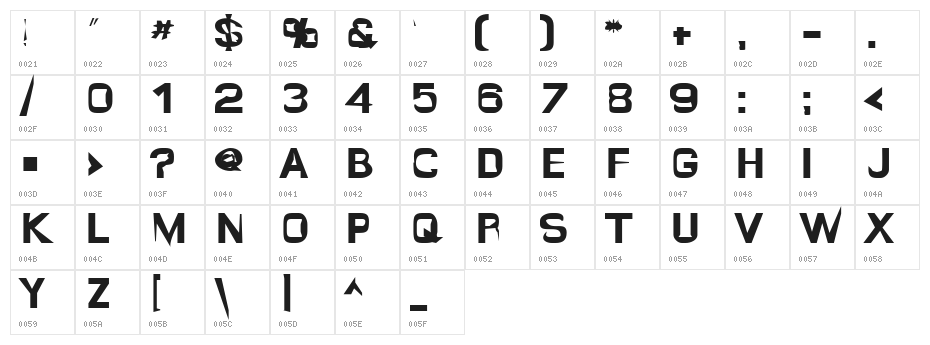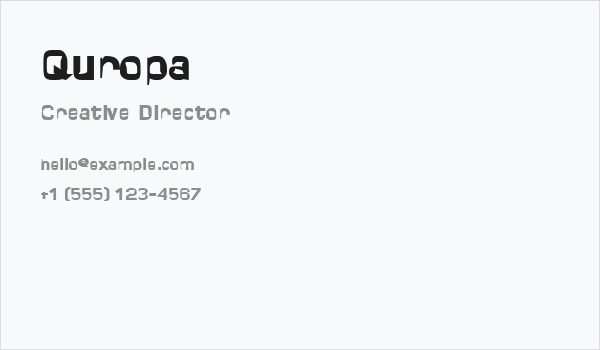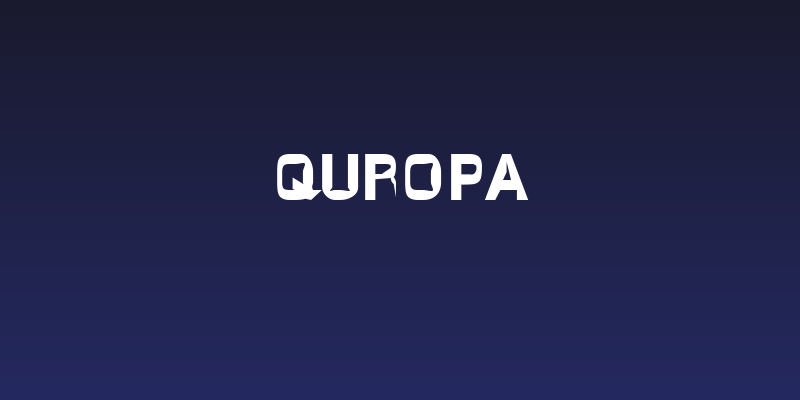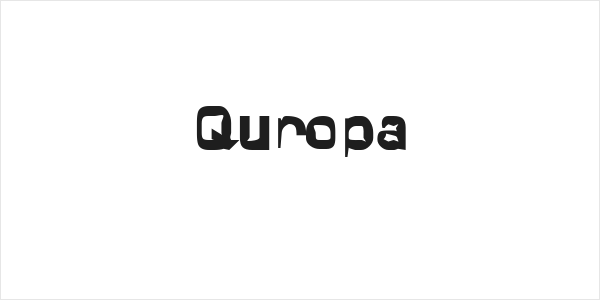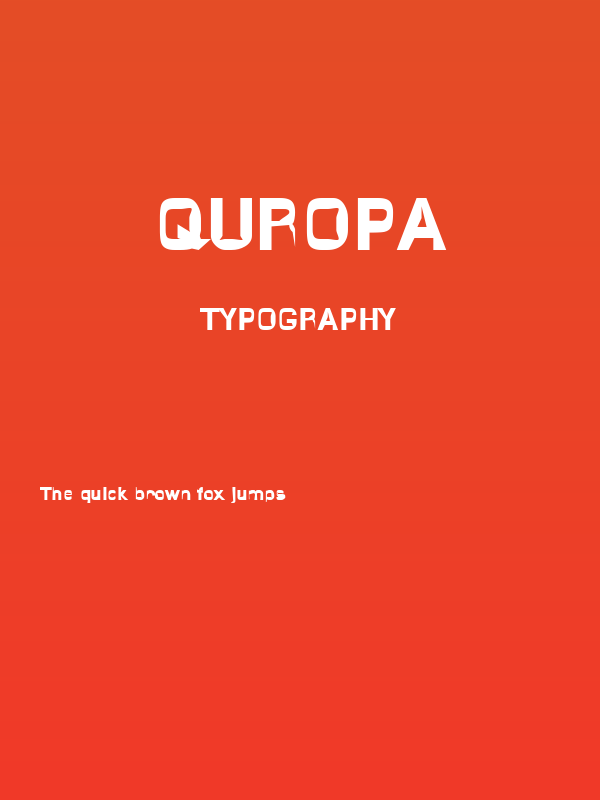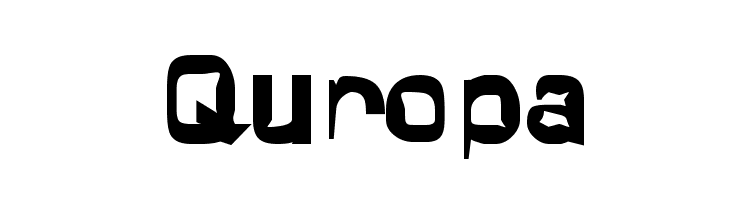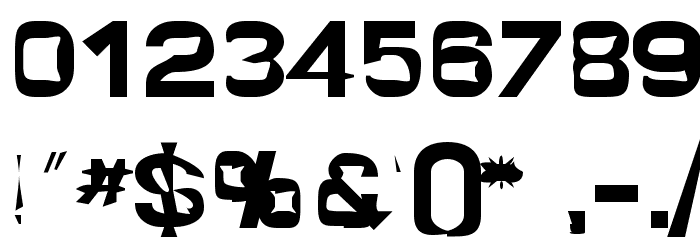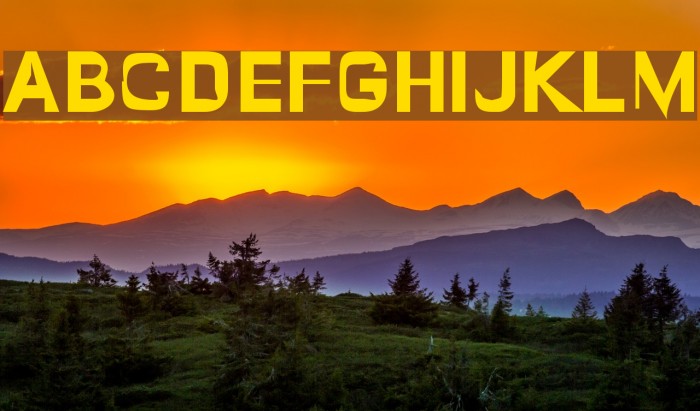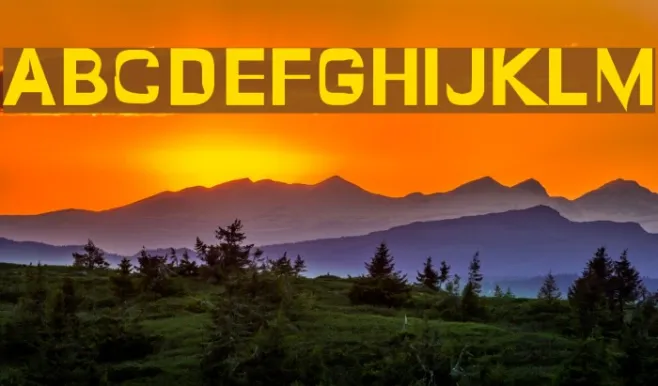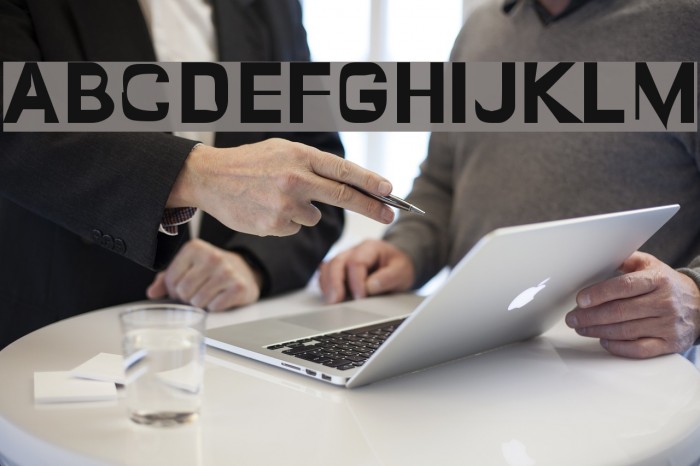
Quropa Font
Quropa Description
This font exhibits a bold and modern style with a unique twist in its design. The characters are predominantly uppercase with a strong geometric influence, featuring sharp angles and a slightly condensed appearance. The lowercase letters maintain a consistent style, echoing the boldness of the uppercase set. The numerals are equally robust, ensuring clarity and impact. Special characters are designed to complement the overall aesthetic, making them suitable for a variety of uses. The font's distinctiveness lies in its ability to convey strength and modernity, making it ideal for attention-grabbing headlines and branding projects.